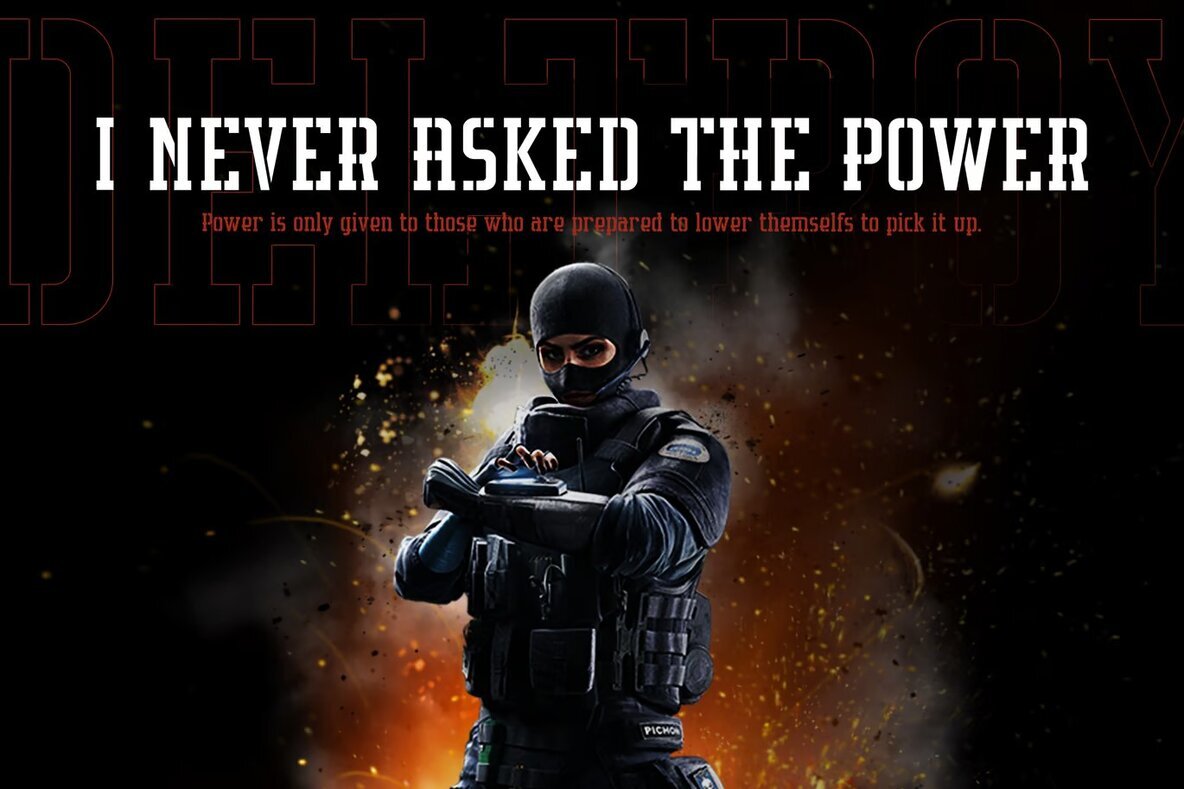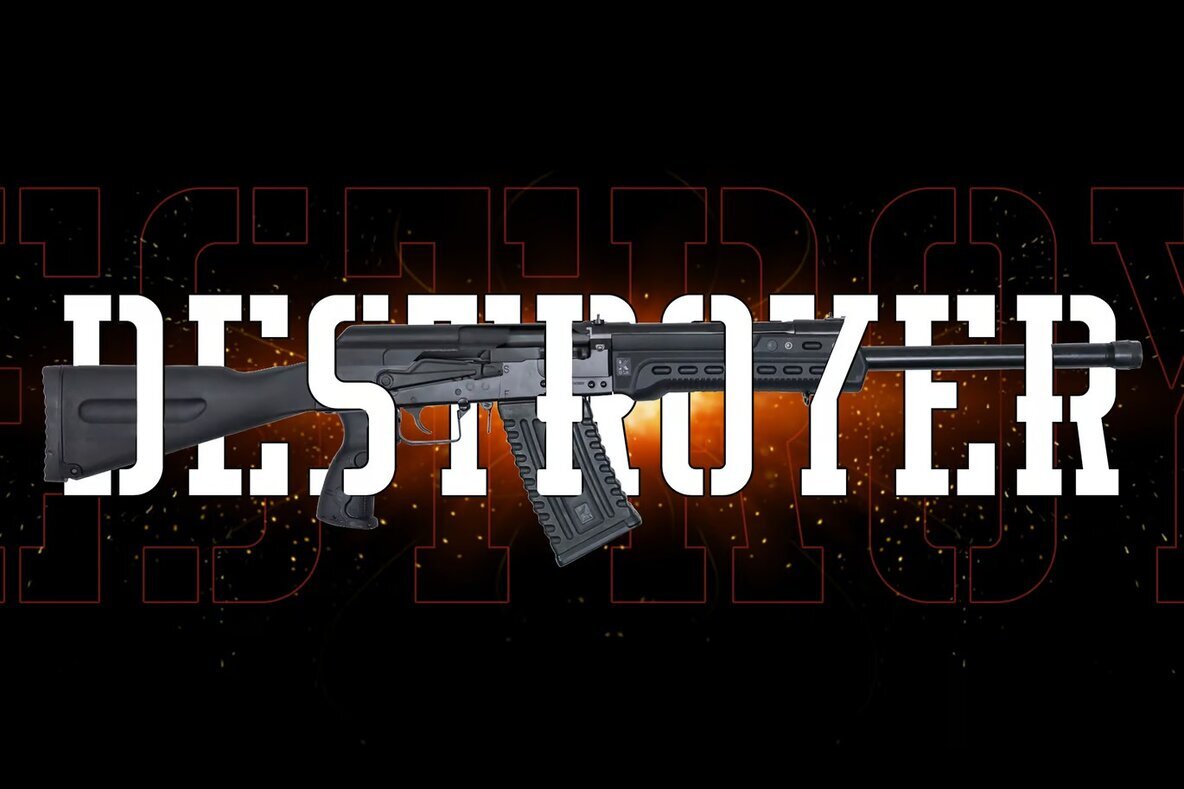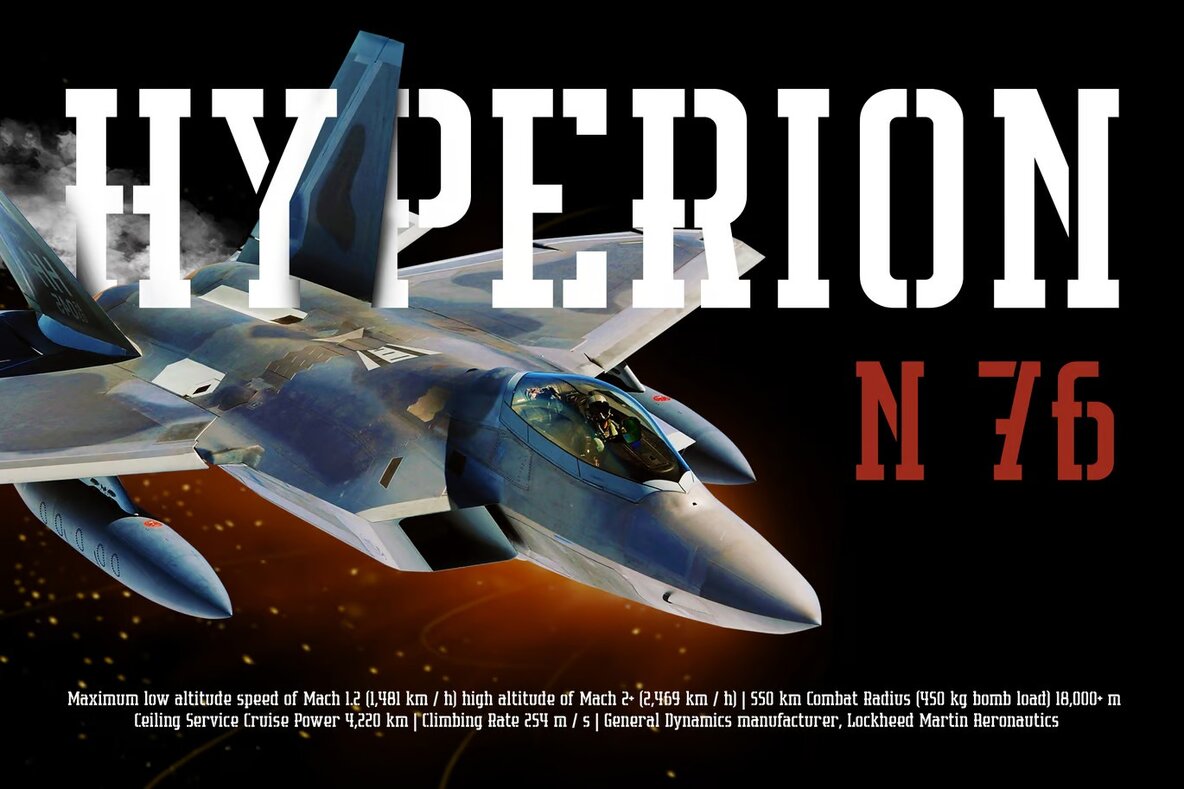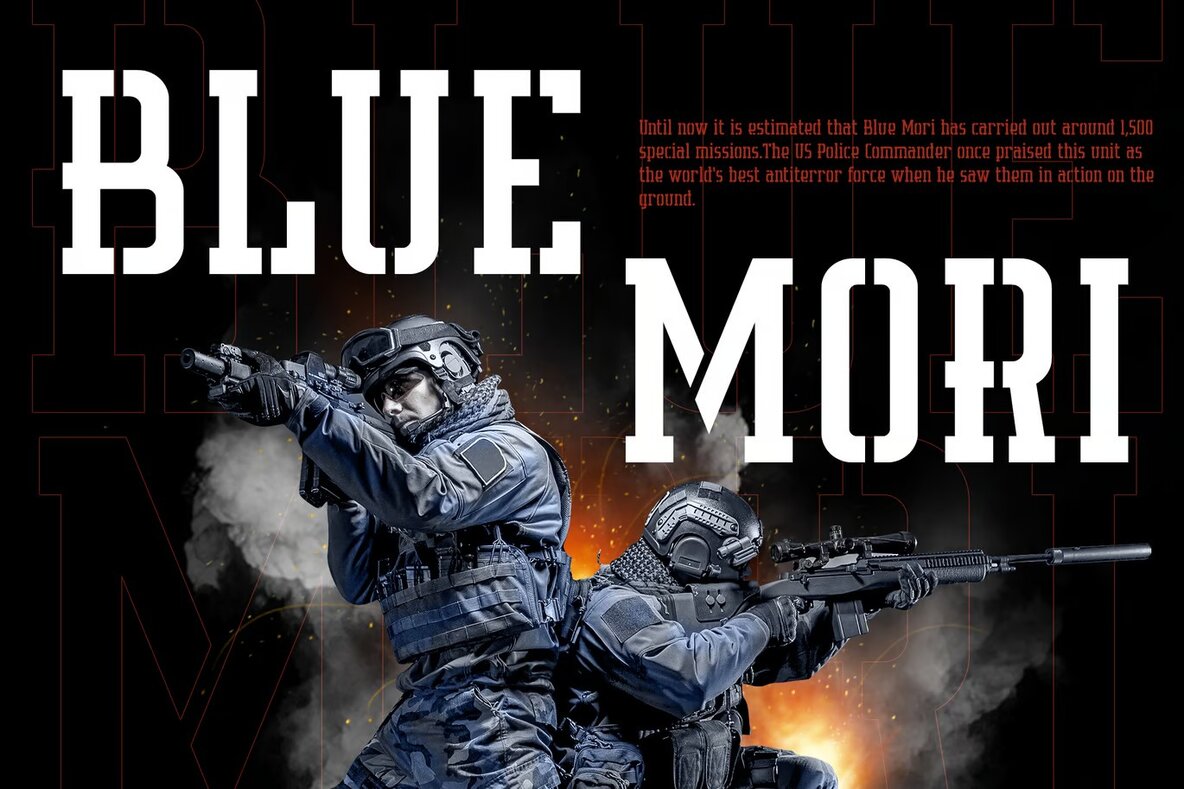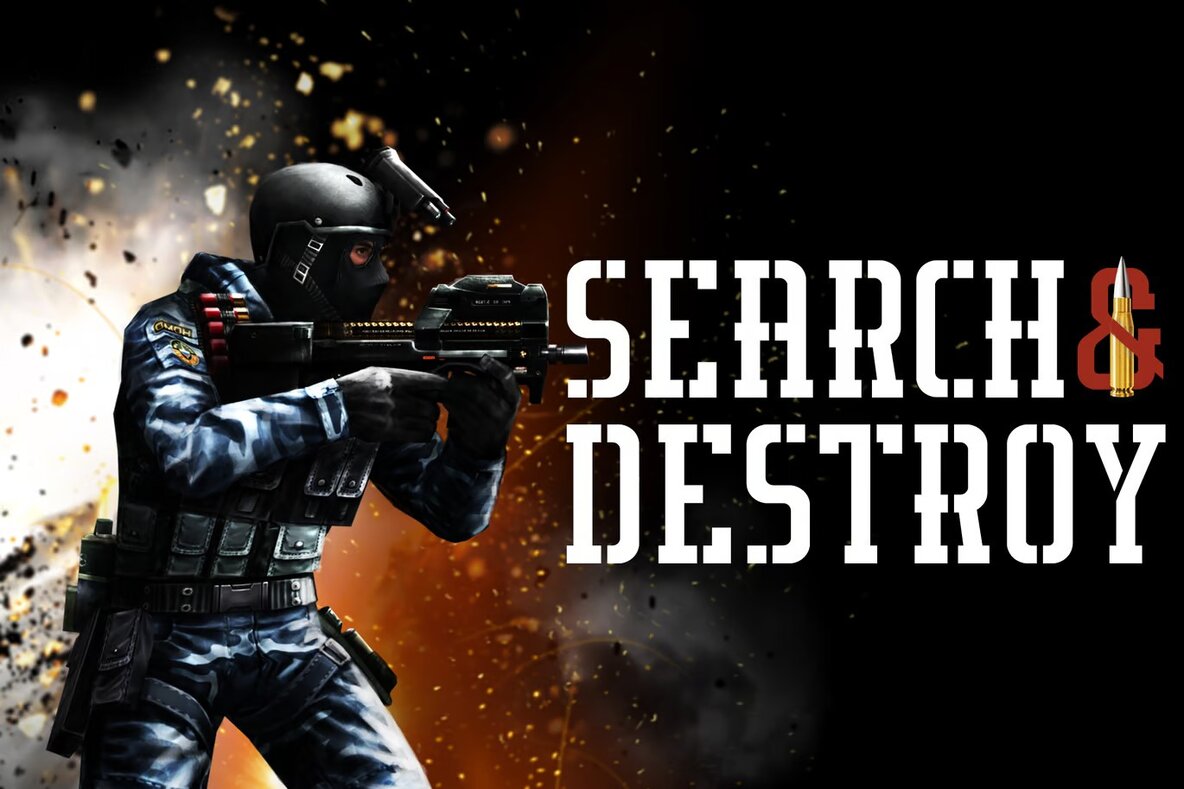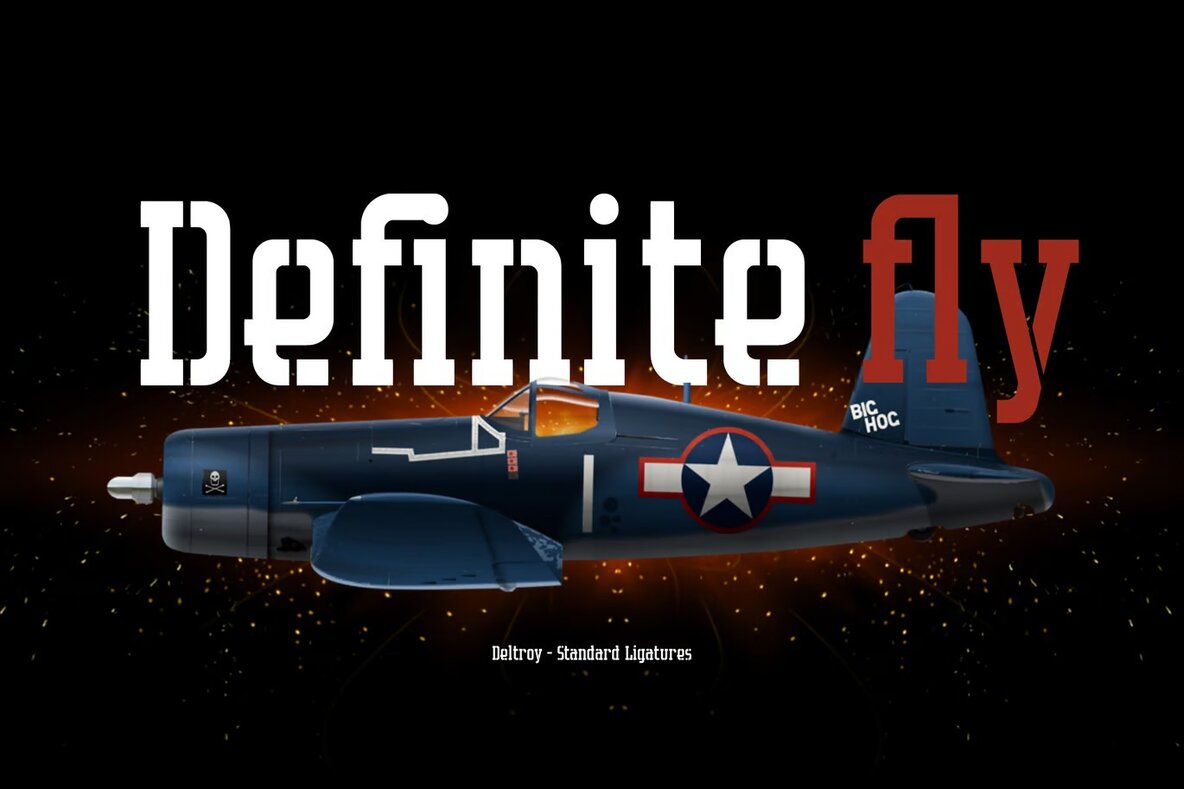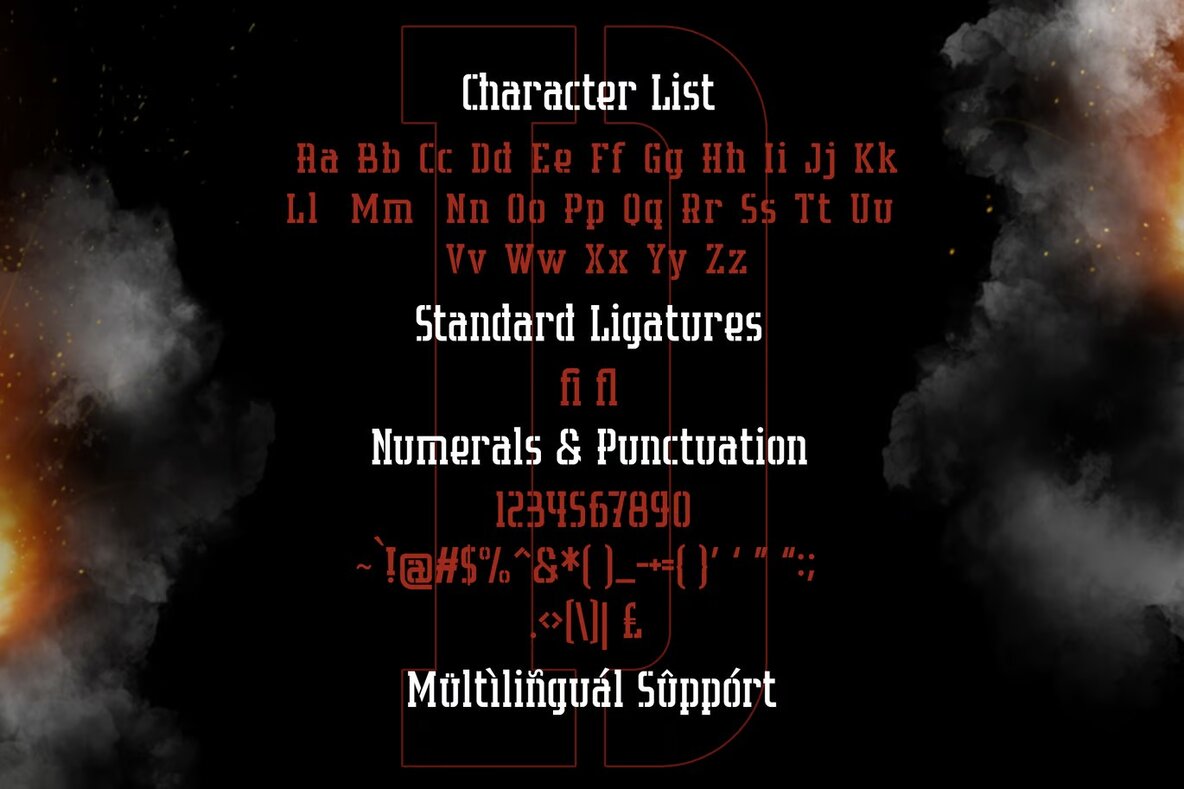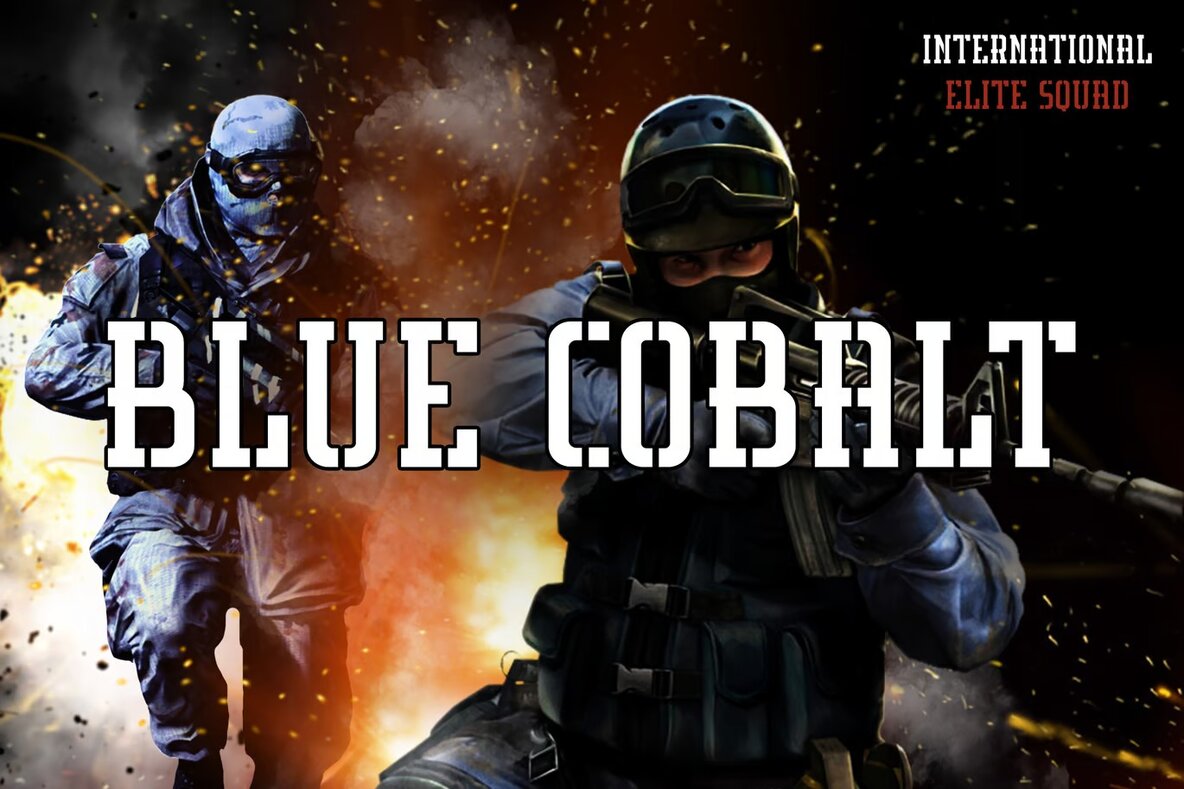
Deltory Font
Deltory Regular
Deltory is a stencil slab serif display font with a strong military aesthetic, ideal for a variety of creative projects. Its bold and structured design makes it perfect for logo branding, editorial layouts, and fashion pieces. Whether you're working on a sports-themed design, blog visuals, or modern advertisements, Deltory provides a distinctive edge.
This versatile typeface also excels in creating dynamic stationery, card invitations, and art quotes. It's an excellent choice for home decor products, book covers, or special event materials, offering a unique and impactful visual appeal.